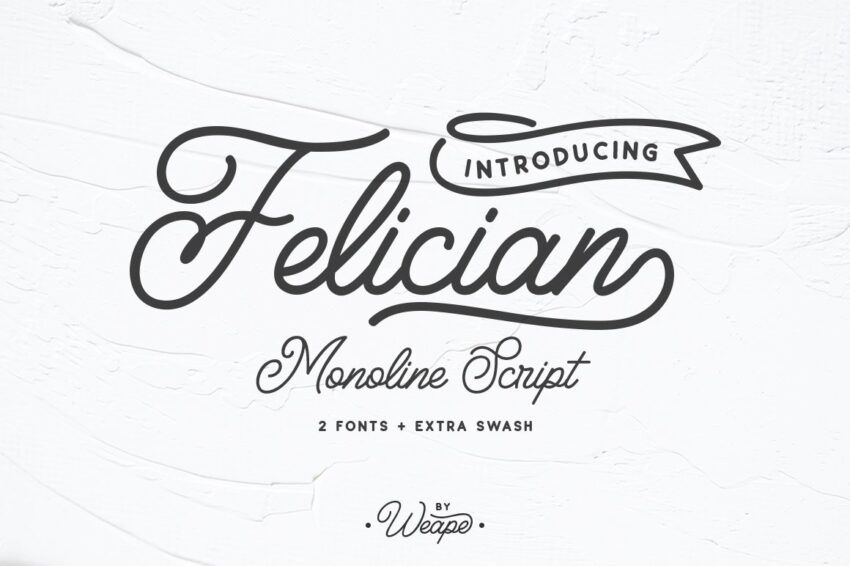
Introduction to Felician Font
Felician is a modern, monoline style font that is suitable for everyday use; this font comes with stylistic alternates, ligatures, swashes and more.
Felician is a modern, monoline style font that is suitable for everyday use; this font comes with stylistic alternates, ligatures, swashes and more!
Key Features of Felician Font
Why Choose Felician Font?